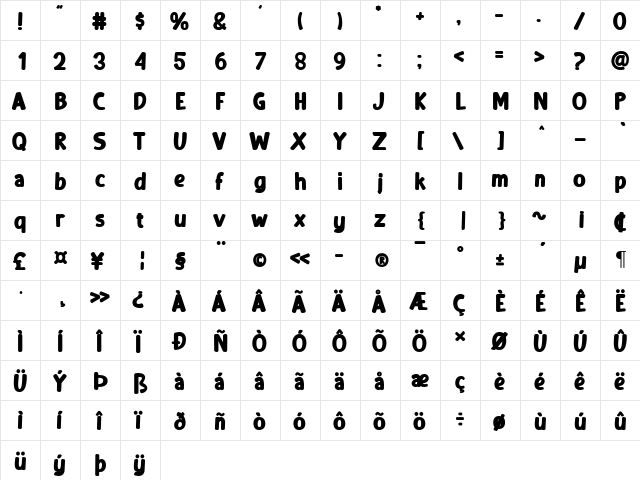
Muffin Regular
| Designer | DickyKribo |
Design Context for Muffin Typeface
Muffin takes a measured approach to typography — its balanced proportions and neutral character make it a reliable workhorse for both digital and print work.